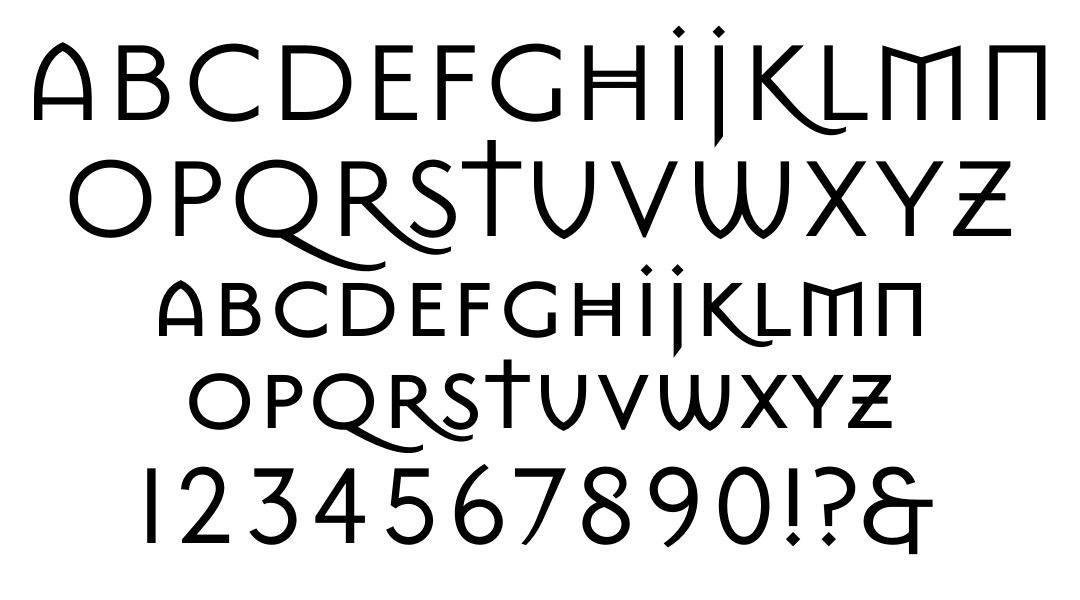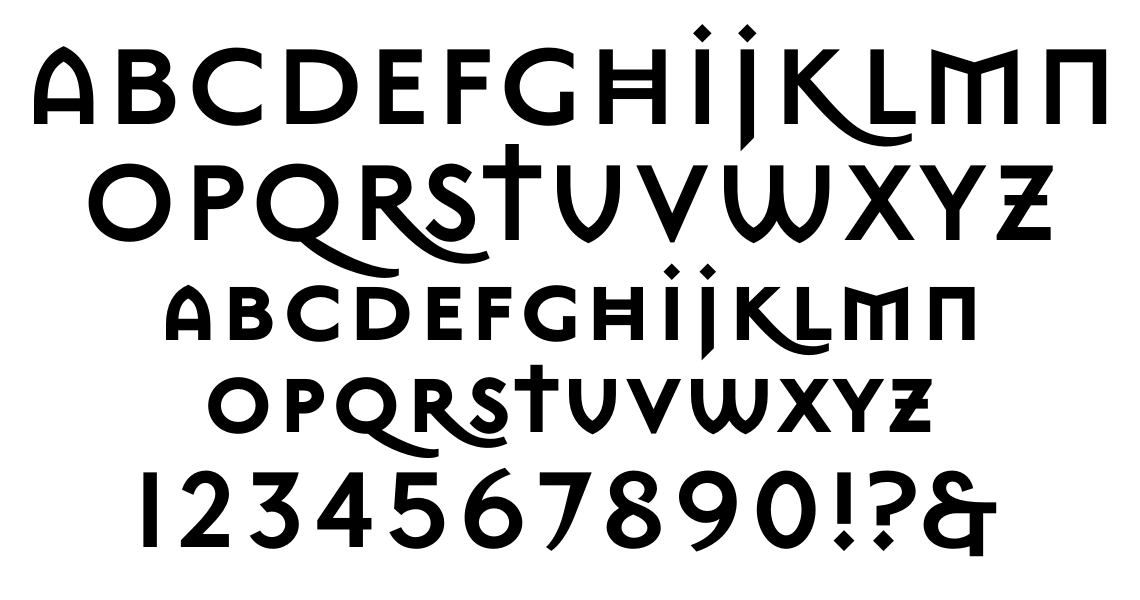
Web Mason Font Is The Family Member Of The Sans Serif Typeface.
Complete family of 2 fonts: No, this is not a google. Mason font family was designed by jonathan barnbrook and published by emigre.
Web What Is The Mason™ Font?
Social Media, Movie Titles, Books.
It Is Based On The Lettering Of Edward.